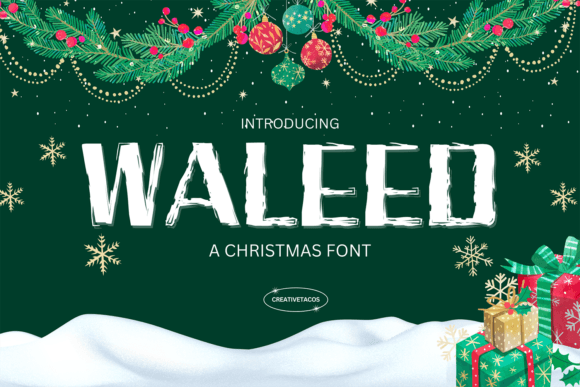
Introducing Waleed Font, the ultimate choice for modern design enthusiasts! Crafted by the talented team at Creative Tacos, this festive and whimsical typeface is here to make your holiday season even more magical. Get ready to infuse your projects with a delightful sense of joy and cheer!
Waleed Font belongs to the display font family, offering you the best font for modern designs. Its unique and captivating style is sure to captivate your audience's attention and set your work apart from the rest. Let's dive into why this font is an absolute must-have for anyone looking to create stunning holiday-themed designs:
1. Versatility at its finest: Waleed Font is a chameleon, effortlessly adapting to any creative vision you have in mind. Whether you're designing Christmas cards, party invitations, or holiday-themed posters, this font will work its magic and bring your ideas to life. Its versatility knows no bounds!
2. Eye-catching headlines: With Waleed Font, your headlines will shine like never before. Its bold and whimsical characters command attention, instantly grabbing the viewer's eye. Say goodbye to boring and mundane headlines – Waleed Font will make sure your message stands out from the crowd.
3. Captivating titles and logos: Looking to create a logo that captures the essence of the holiday season? Waleed Font is your go-to choice. Its playful curves and elegant strokes add a touch of charm to any title or logo, making it memorable and visually stunning. Let your brand reflect the magic of the holidays!
4. Unleash your creativity: Waleed Font is a true source of inspiration for designers seeking to add a festive touch to their projects. Its joyful and whimsical nature sparks creativity and invites you to explore new possibilities. Get ready to unleash your imagination and create designs that spread holiday cheer!